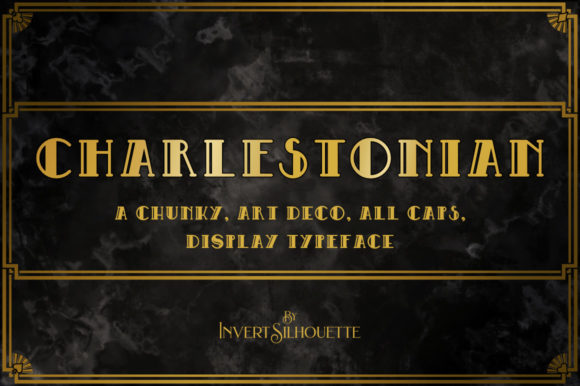
Introducing Charlestonian, the ultimate Art Deco-inspired display font that oozes elegance and sophistication. Created by the talented team at invertsilhouette, this gorgeous and unique font is the perfect choice for adding a touch of timeless glamour to any project.
With its clean lines, geometric shapes, and distinctive Art Deco motifs, Charlestonian captures the essence of the Roaring Twenties, transporting you back to an era of opulence and extravagance. Whether you're designing posters, invitations, logos, or social media graphics, Charlestonian will add an instant touch of class and sophistication.
Immerse yourself in the world of Charlestonian and let your creativity soar. Its versatility knows no bounds. Use it to create stunning headlines that demand attention, eye-catching logos that leave a lasting impression, or elegant invitations that set the tone for an unforgettable event.
Unleash your inner artist and let Charlestonian take your designs to new heights. Its timeless beauty will captivate your audience and leave them in awe.